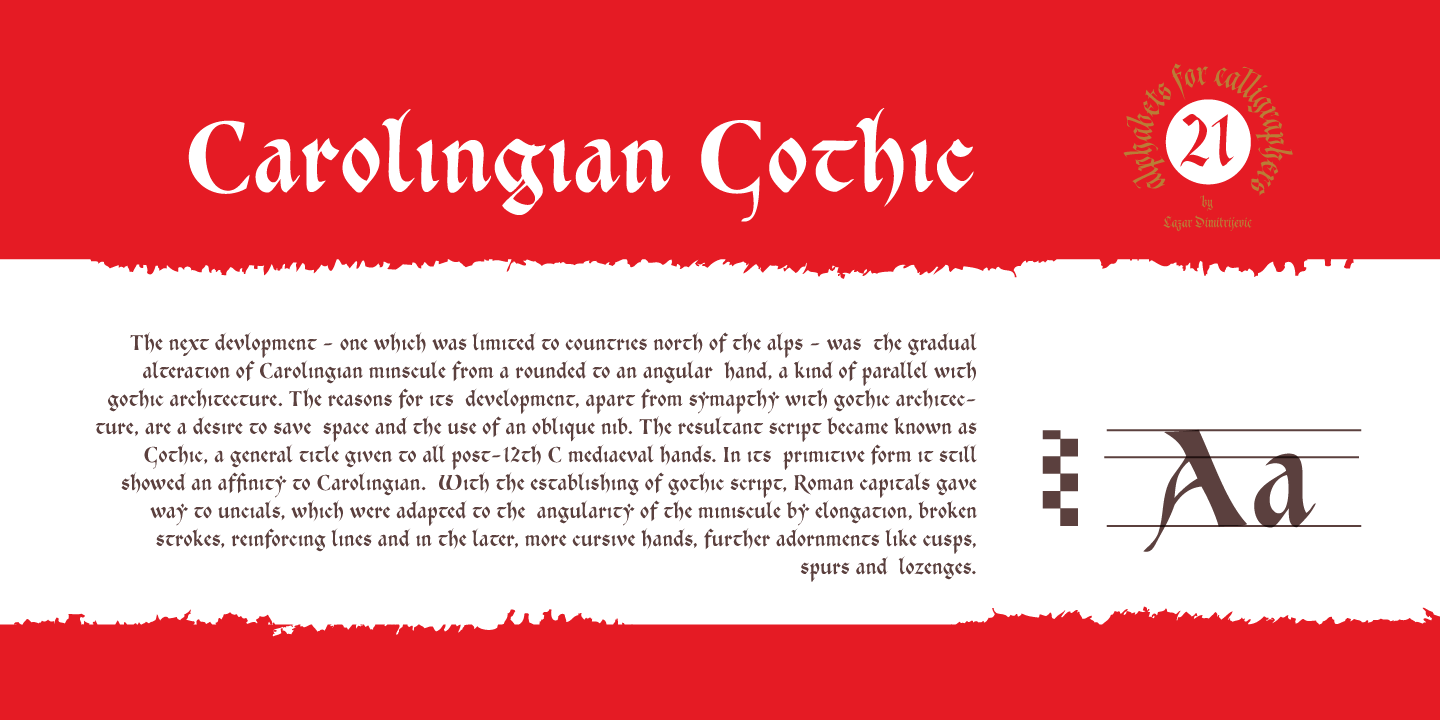
Cal Carolingian Gothic Font is perfect for medieval manuscript reproductions, gothic cathedral signage, historical museum displays, ancient university branding, medieval fantasy gaming, ecclesiastical publications, monastery scriptorium projects, illuminated manuscript designs, historical documentary titles, and medieval-themed entertainment venues.
Cal Carolingian Gothic Font is exciting because it preserves the sacred artistry and scholarly tradition of medieval calligraphy with authentic letterforms that echo the devotional manuscripts of Carolingian scribes, making it perfect for projects celebrating historical scholarship and ecclesiastical heritage.
The Cal Carolingian Gothic Font family includes regular weight with authentic medieval character styling, illuminated capitals, and period-appropriate ornamental elements, providing designers with scholarly tools for creating typography that honors centuries of monastic calligraphic tradition and medieval craftsmanship.
When your project demands historical authenticity and medieval scholarly gravitas, Cal Carolingian Gothic Font Free Download provides the perfect foundation for connecting with ancient traditions. This distinguished typeface combines Carolingian manuscript heritage with contemporary functionality, ensuring your designs resonate with audiences seeking genuine historical depth and academic credibility. The authentic letterforms and medieval styling make this font an essential choice for educational institutions, museums, and any application where historical accuracy, scholarly tradition, and ecclesiastical dignity are crucial for establishing credibility in academic and cultural contexts that honor the rich legacy of medieval learning and sacred manuscript traditions.